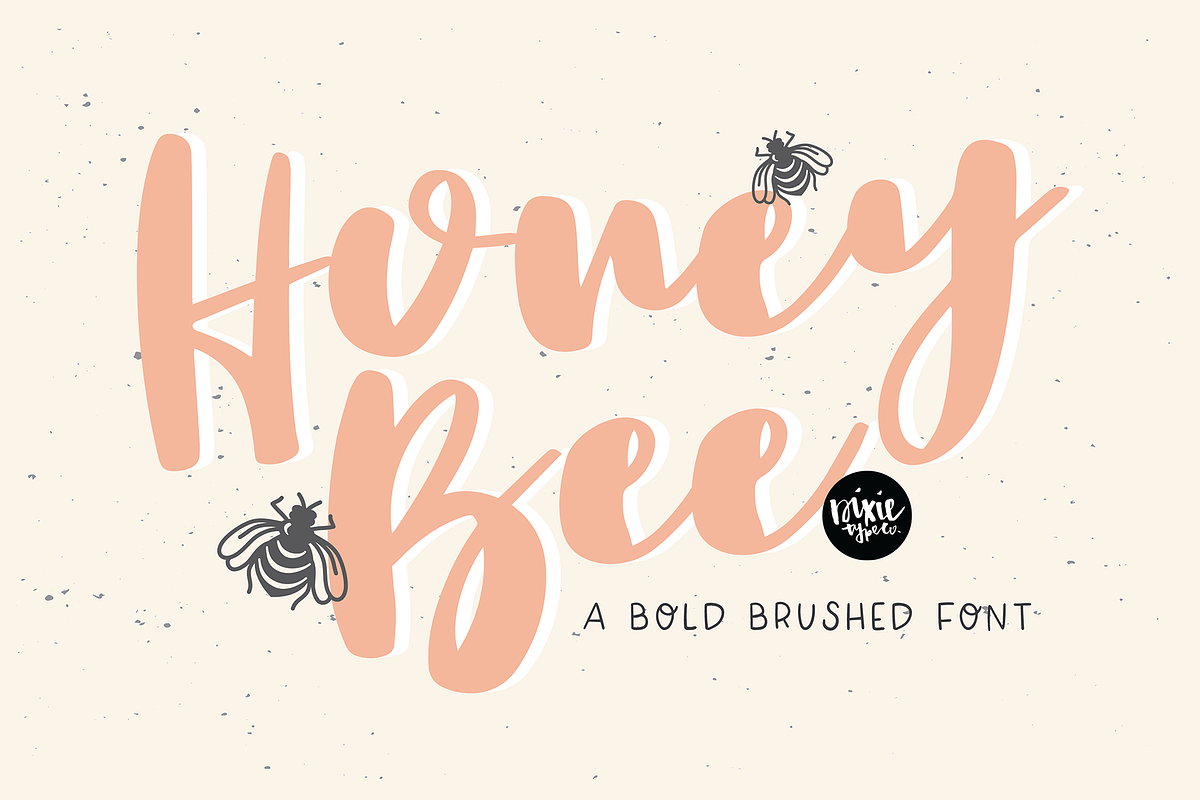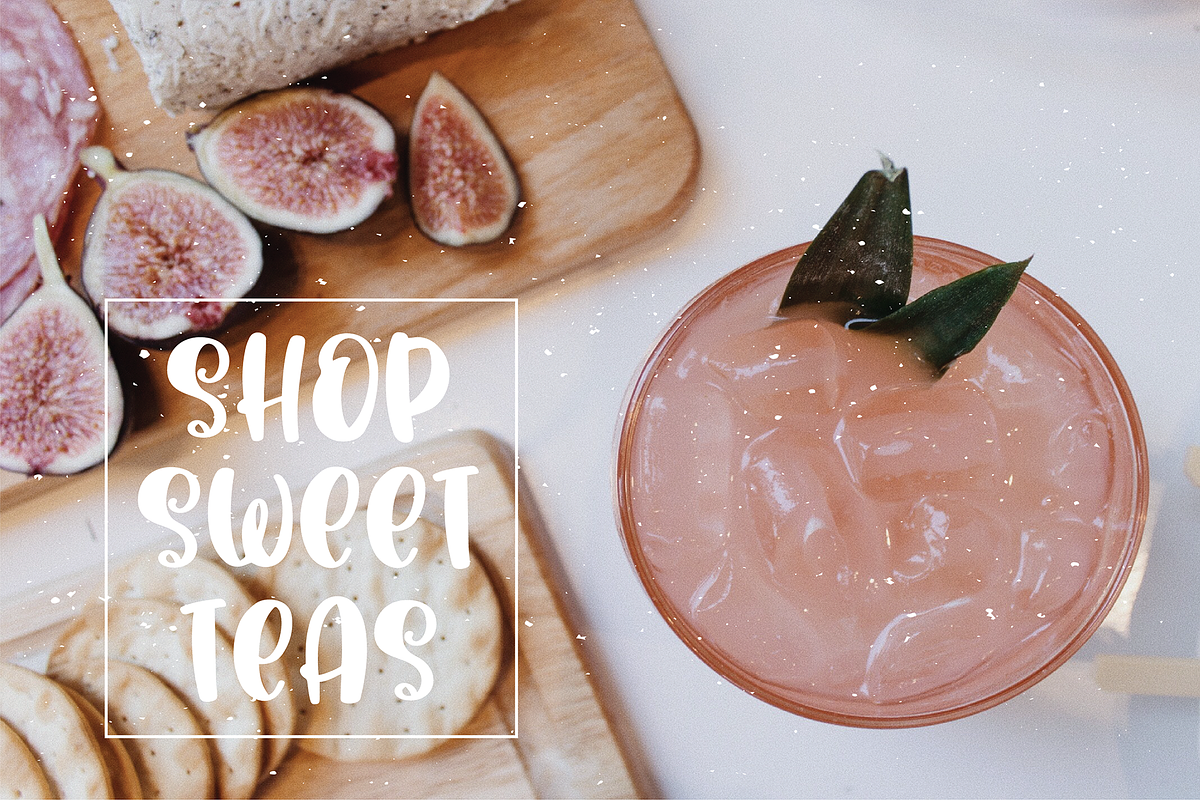
Brush Lettered Font Bundle By Dtc
These fonts were all hand-lettered with a brush and ink, or iPad Pro.
The 8 fonts included are:
SANDCASTLE CRISP SKYLER FLOURISH HONEY BEE VIVIENE FRESH LINENS GOLDEN DAYS CHARLOTTE BRUSH